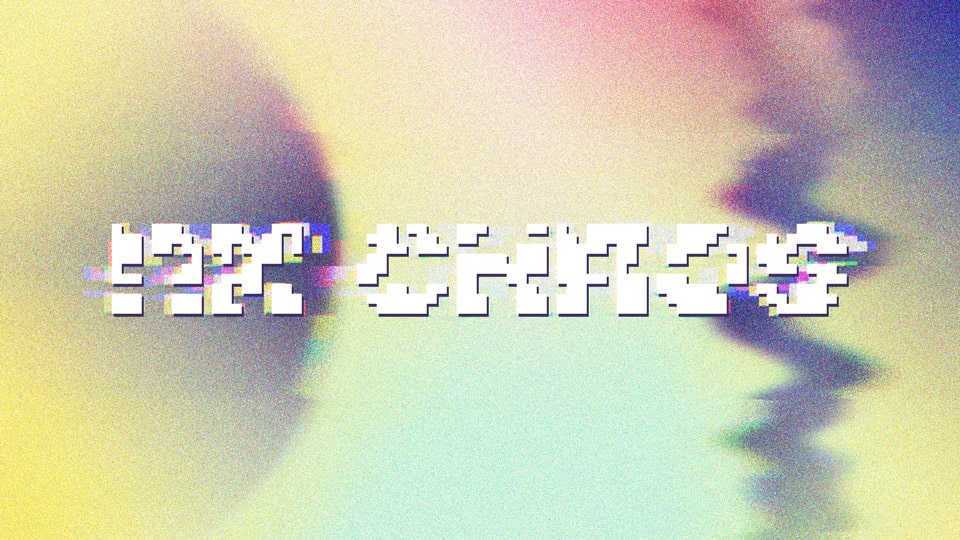
Download NX Chaos font, a bold and rugged pixel typeface that defies convention. Each pixel in NX Chaos font is crafted with intentional distortion, creating a raw and edgy aesthetic that pushes the boundaries of traditional pixel fonts.